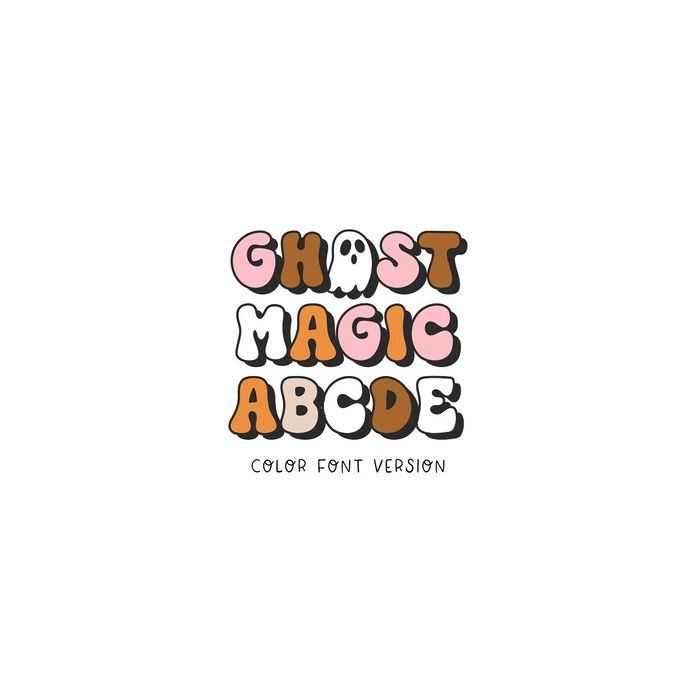
Ghost Magic Color Font is a cute Boho Halloween font. The lowercase letters are pre-colored, but the uppercase characters are plain and empty shadow letters that you can alternate into your words.